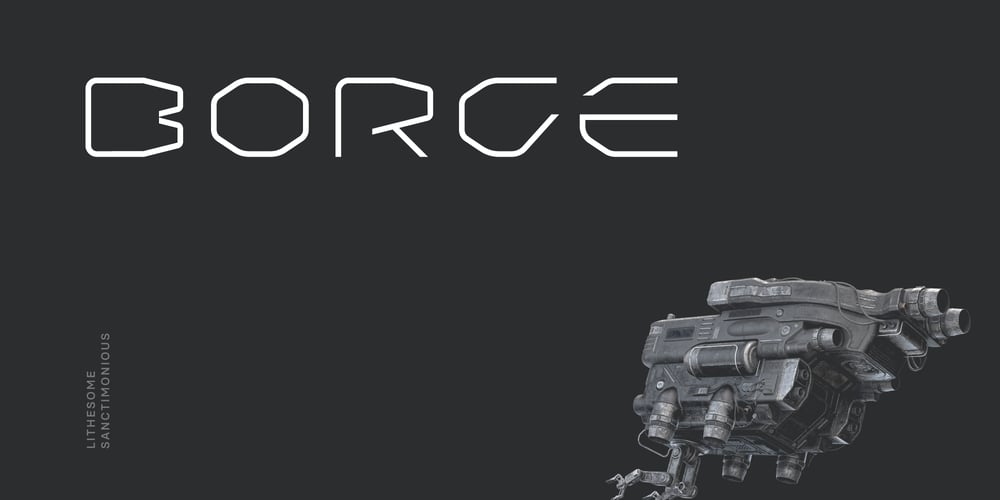
Borge Font Family was designed by Andrew Seah and published by Baqoos. Borge contains 3 styles and family package options. Borge is a lithesome sanctimoniuos tech sans apt for headline, editorial, branding, packaging, printed materials and typographic applications. 200+ glyphs with ligatures and fractions provided in opentype .otf and .woff format.